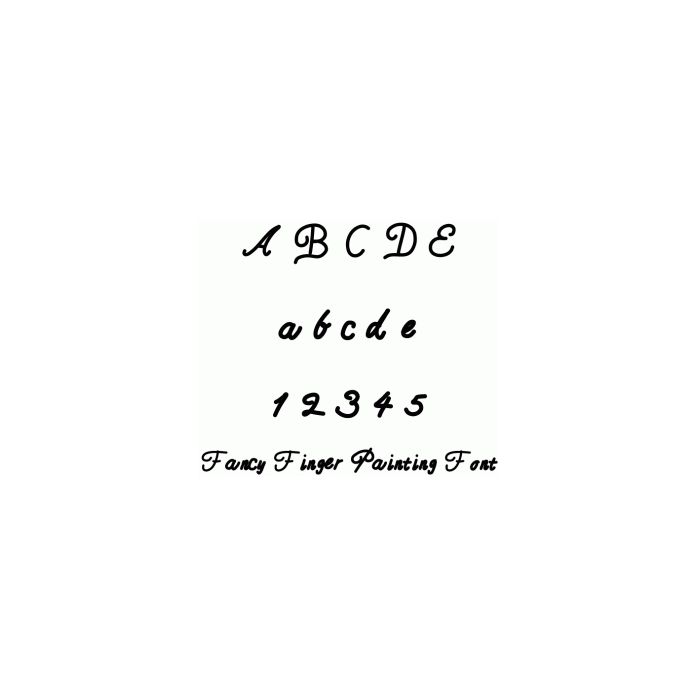
Fancy Finger painting hand written font. For more design ideas, coordinating designs & products and inspiration, please visit my blog http://www.sarahhurley.blogspot.com